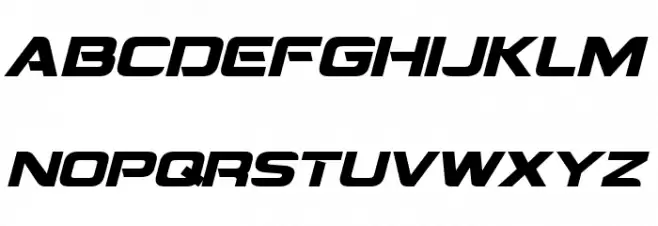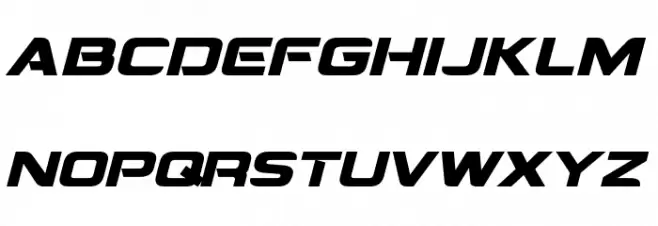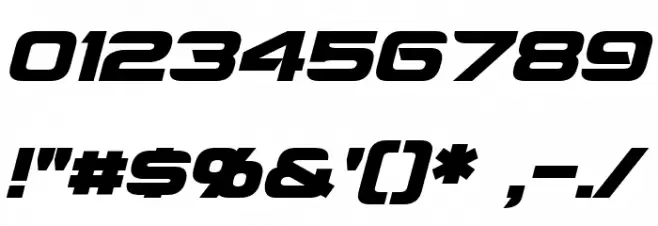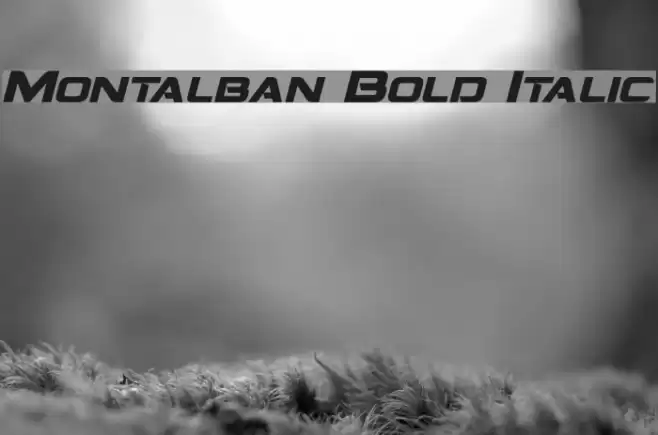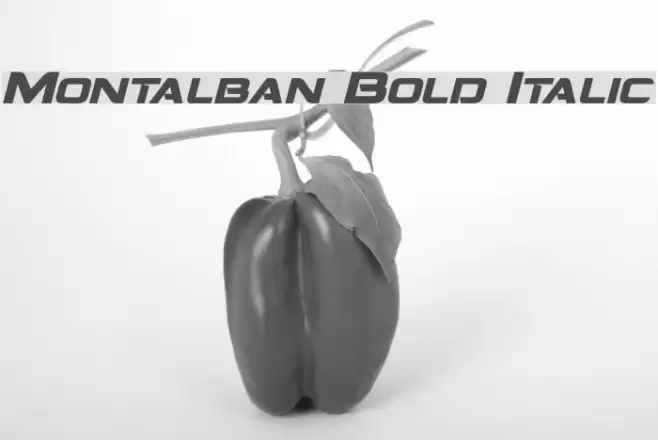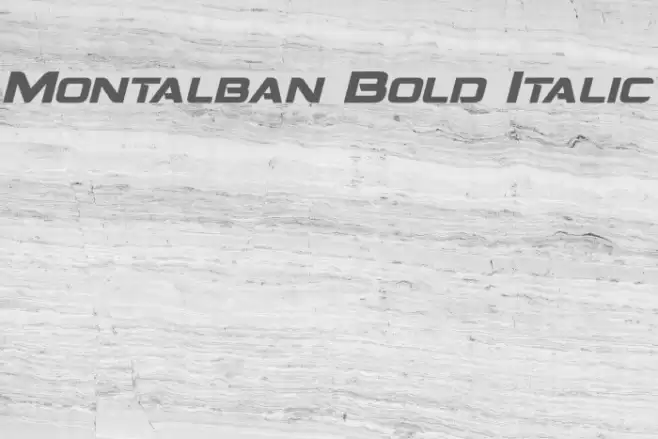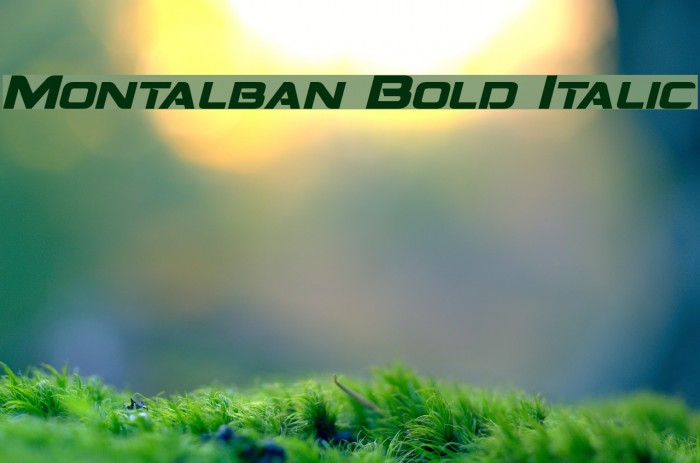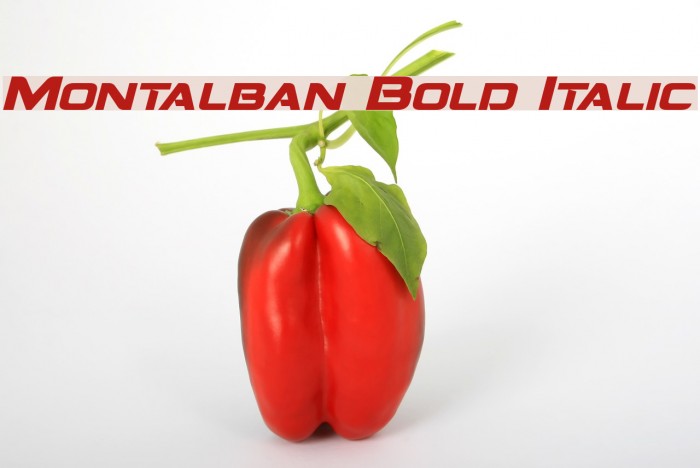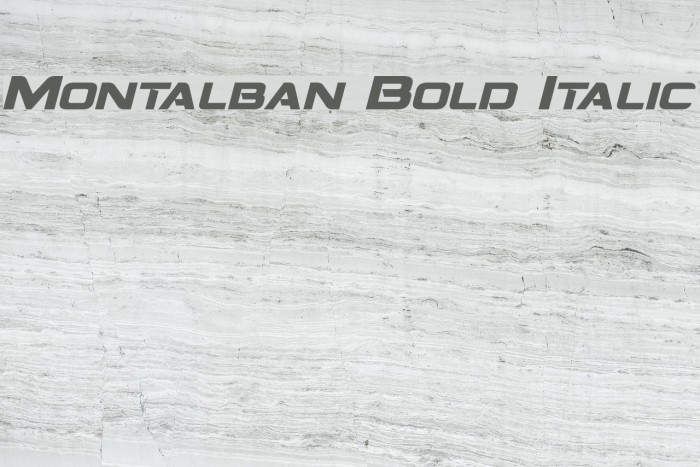
Montalban Bold Italic
This font features a bold and italicized style, characterized by its strong, dynamic slant and thick strokes. The letters are designed with a modern flair, emphasizing a sense of motion and energy. The uppercase and lowercase characters maintain a consistent slant, enhancing the italic effect. The numerals and special characters are crafted to match the boldness and slant of the alphabet, ensuring uniformity across all glyphs. The overall appearance is sleek and contemporary, making it suitable for projects that require a bold statement.
A bold, italicized font with a modern and dynamic slant.
- Proposed Projects: Ideal for sports branding, dynamic posters, modern advertisements, and eye-catching headlines.
- Use Case: Headlines, Logos, Posters